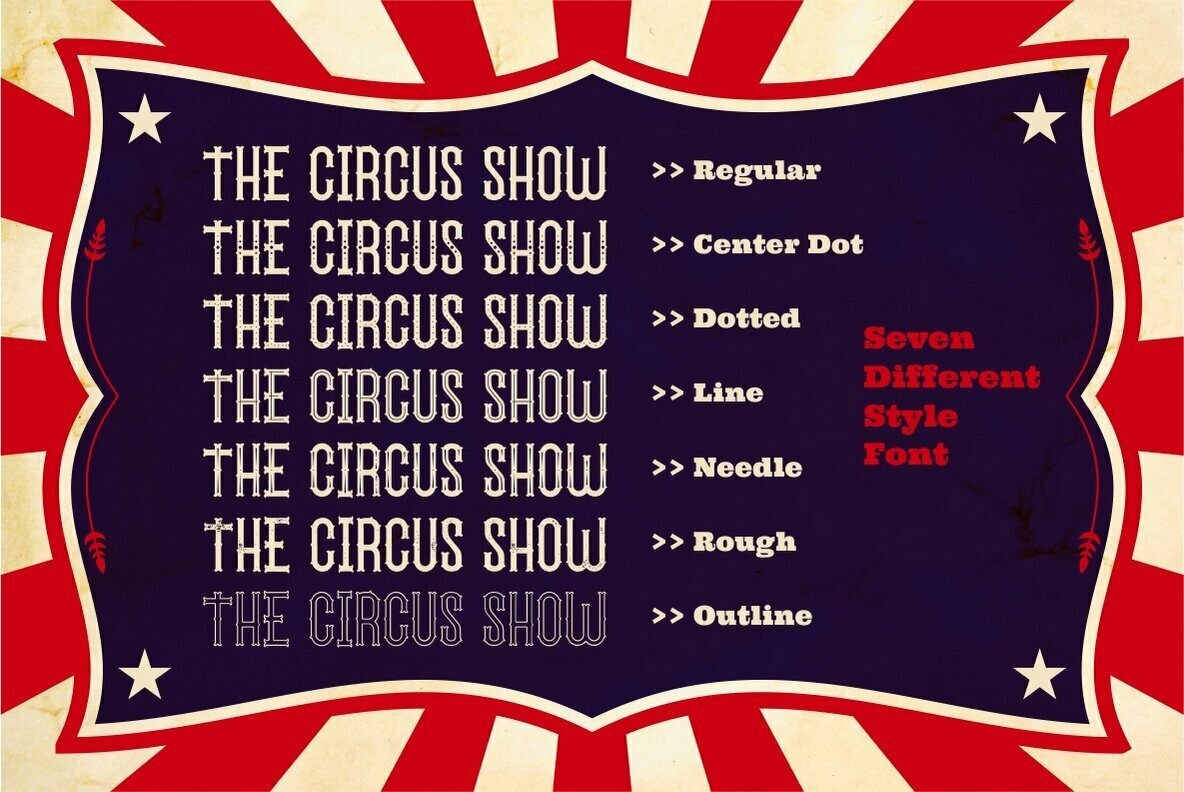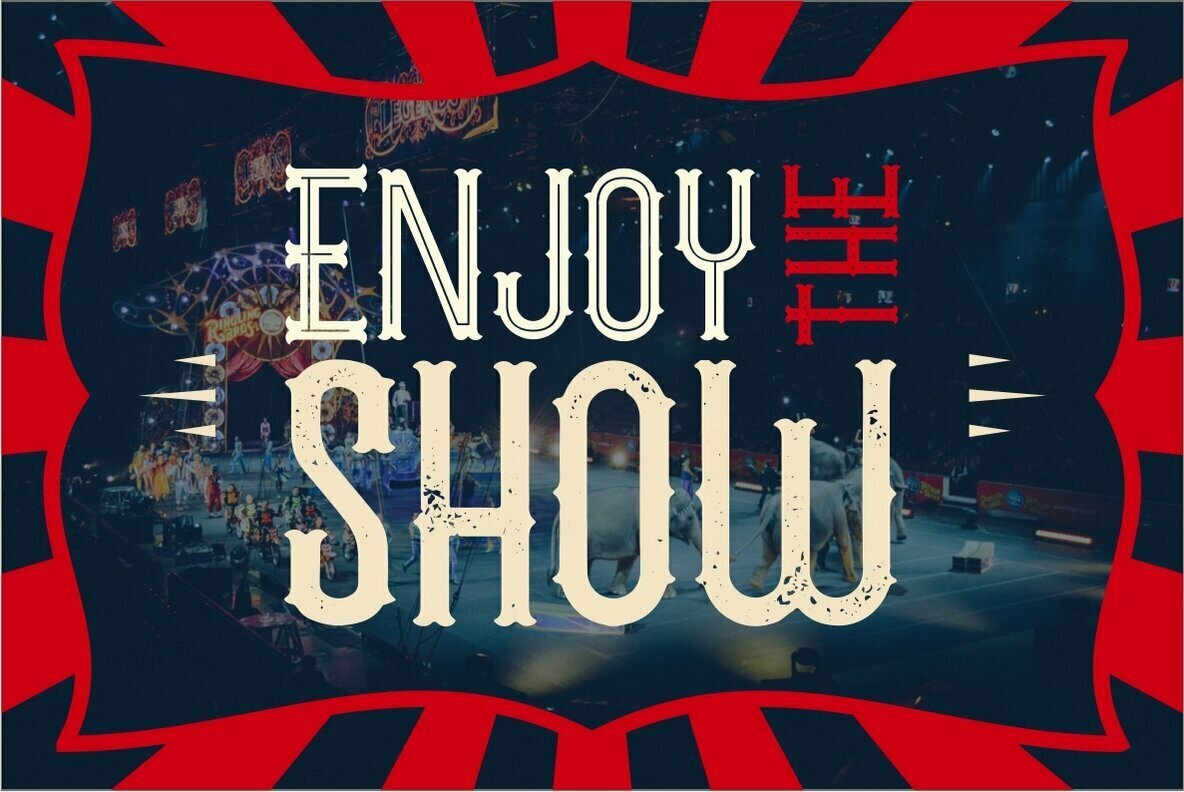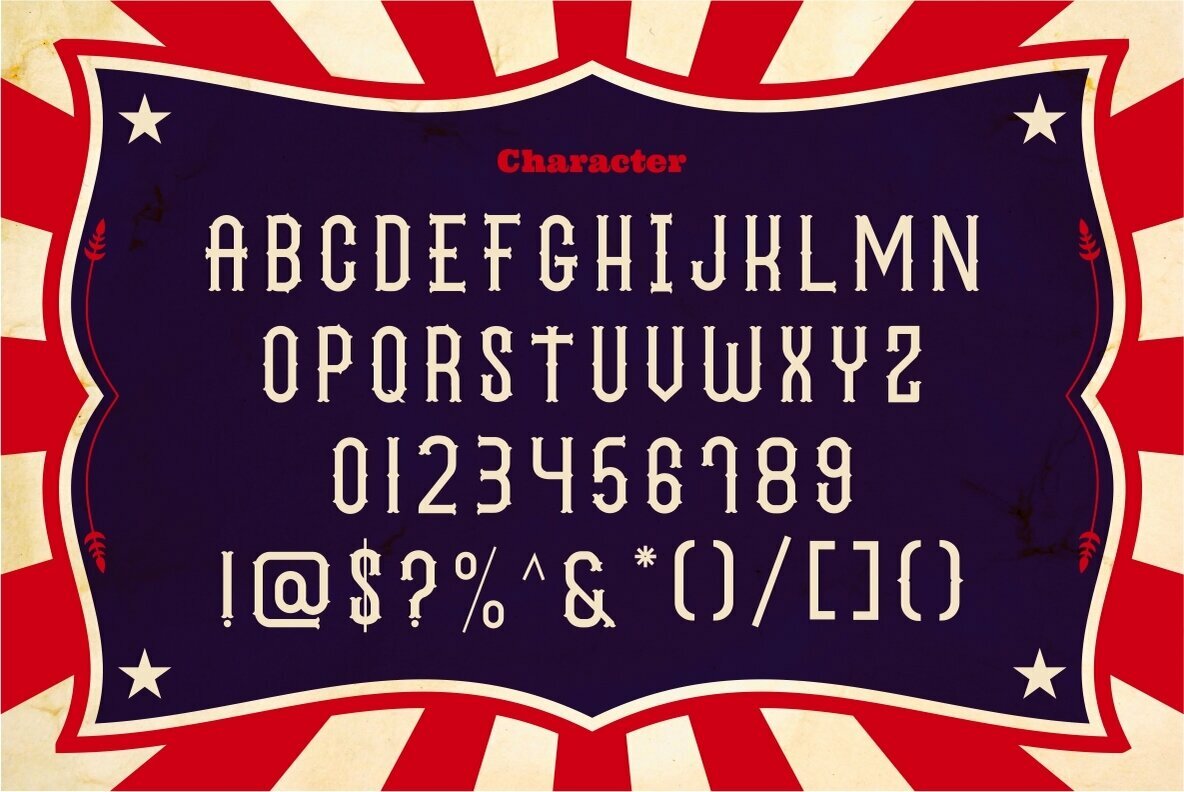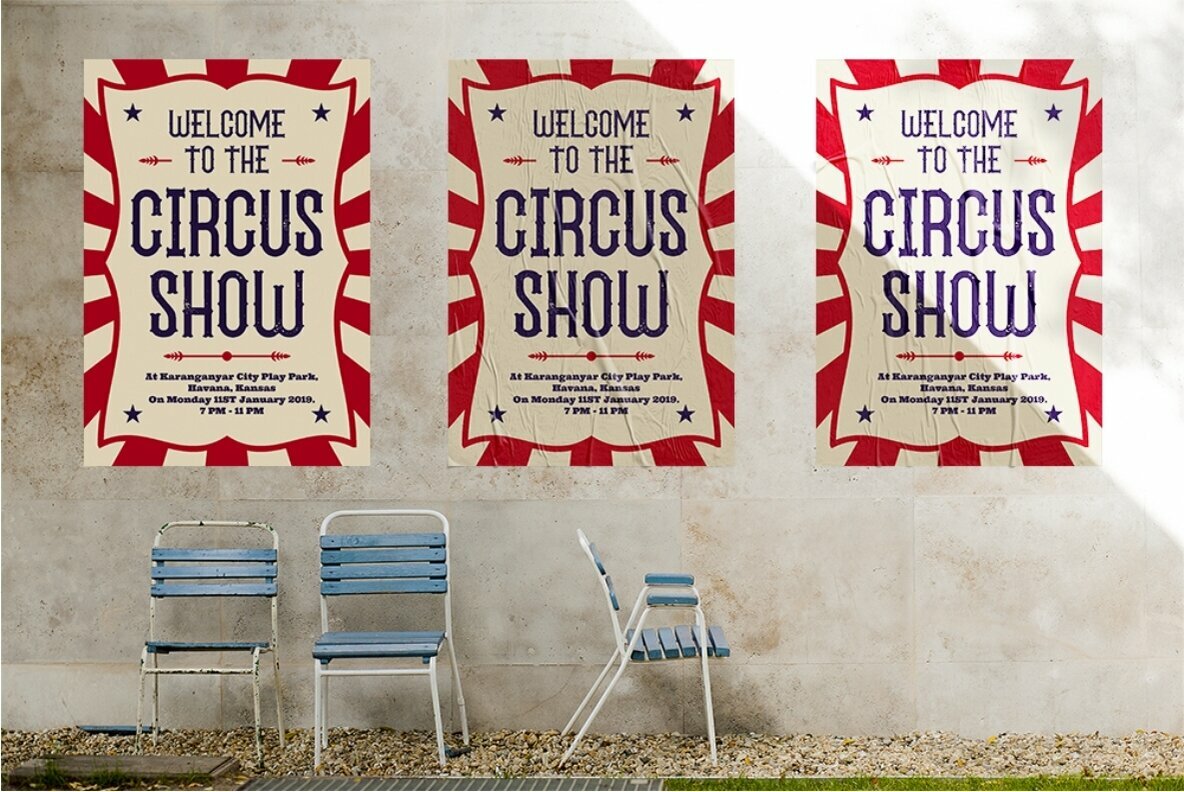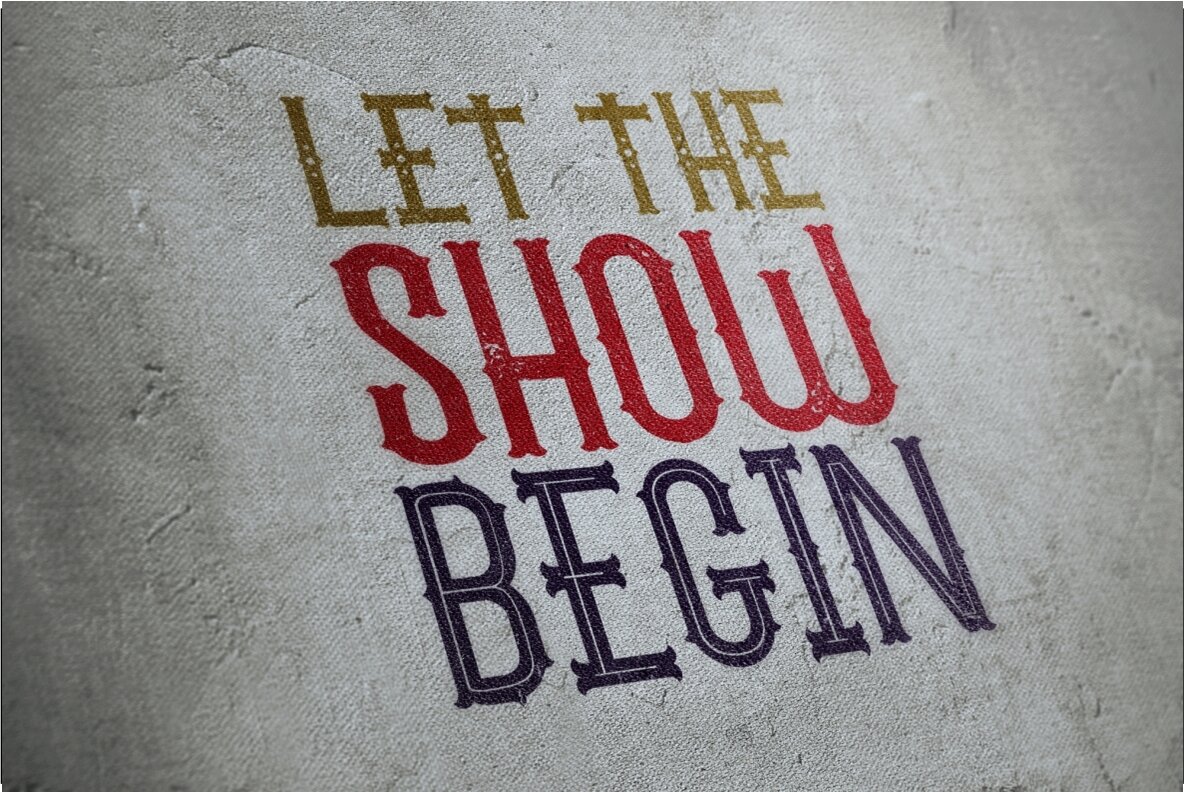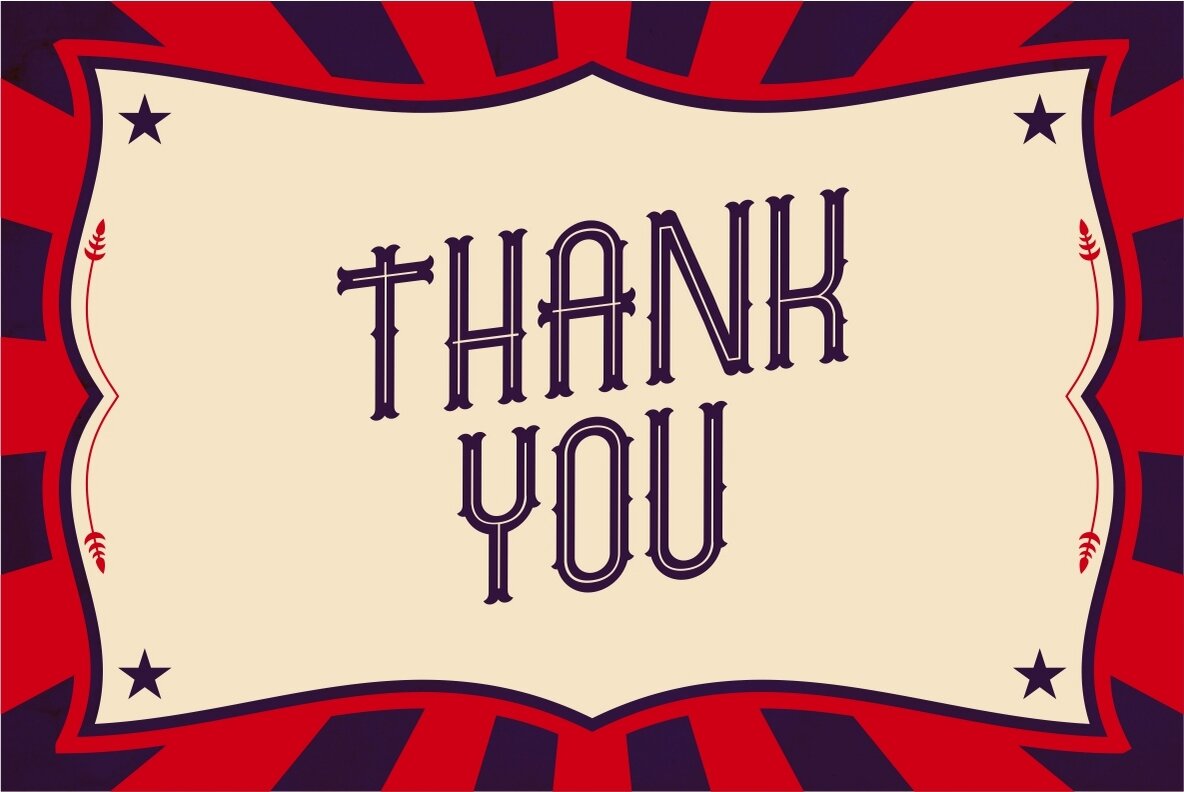
The Circus Show Font
Step right up to The Circus Show, a captivating display typeface that draws inspiration from the vibrant world of American circus and carnival typography intertwined with the boldness of 1980s tattoo art. The typography echoes playful exuberance and certain nostalgias, making it a versatile addition to any designer's toolkit. Features: The Circus Show typeface is designed to inject a sense of fun and festivity into your projects, perfectly catering to events and themes yearning for flair. With its eclectic range of styles, this typeface embraces both tradition and modernity, ensuring your designs stand out with unforgettable character.The Circus Show: An Energetic Display Typeface